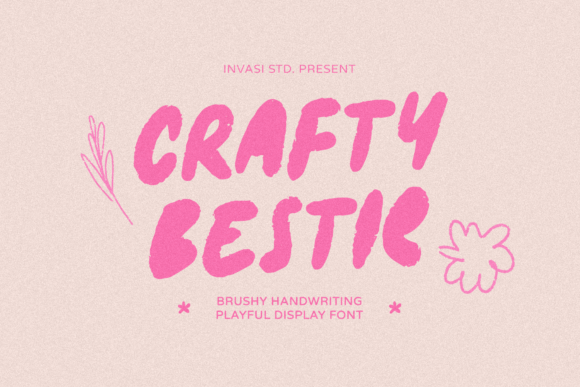
Step into the world of irresistible charm and playful creativity with Crafty Bestie Font, a display font that exudes undeniable friendliness and effortless readability. Designed by the talented invasistudio, this font is a masterpiece of digital artistry, crafted to add a touch of whimsy and warmth to your creative projects.
With its delightfully playful curves and endearingly imperfect edges, Crafty Bestie Font captures the essence of childlike wonder and imagination. Its unique character dances across the screen, evoking a sense of nostalgia and innocence that resonates with audiences of all ages. Whether you're a seasoned designer or a creative enthusiast, Crafty Bestie Font is the perfect companion for adding a personal touch to your digital creations.
Whether you're designing eye-catching posters, creating captivating social media graphics, or simply adding a splash of personality to your presentations, Crafty Bestie Font is the ultimate choice for adding a touch of lighthearted charm. Its versatility knows no bounds, making it the perfect font for a wide range of projects, from invitations and greeting cards to website designs and branding materials.
Immerse yourself in the world of Crafty Bestie Font and discover a font that's both aesthetically pleasing and incredibly versatile. Let your creativity soar as you explore the endless possibilities that this remarkable font has to offer.